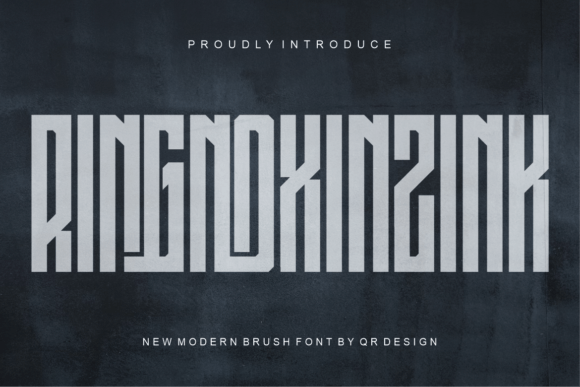
Journey into the world of Typography with Ringnoxinzink Font - Where Boldness and Authenticity Reign Supreme.
In a world saturated with digital monotony, Ringnoxinzink Font emerges as a beacon of originality. This sans serif font family is not just a collection of letters; it's an artistic masterpiece that captivates and inspires. With its bold and authentic strokes, Ringnoxinzink Font transcends the boundaries of ordinary typography, propelling your designs to new heights of creativity.
Step into a realm where your imagination runs wild, where words dance with vigor, and messages resonate with undeniable impact. Ringnoxinzink Font is the ultimate weapon in your typographic arsenal, transforming ordinary text into extraordinary statements. Say goodbye to dull and forgetable designs and embrace a font that commands attention, leaving a lasting impression on every beholder.
Whether you're crafting logos that demand recognition, designing posters that scream for attention, or creating social media graphics that ignite engagement, Ringnoxinzink Font is your steadfast companion. Its versatility knows no bounds, adapting seamlessly to a myriad of branding projects and creative endeavors.
Dive into the boundless possibilities of Ringnoxinzink Font and let your designs take center stage. Its bold and authentic style is a breath of fresh air in the realm of typography, ensuring that your creations stand out from the crowd. Unleash your inner artist and let Ringnoxinzink Font be your muse, guiding you towards typographic excellence.